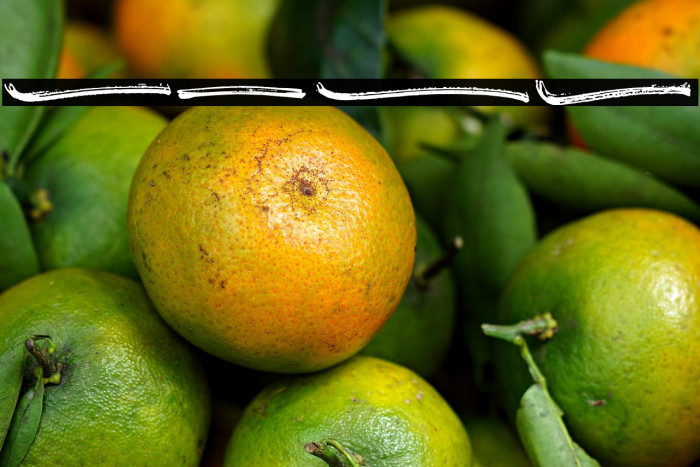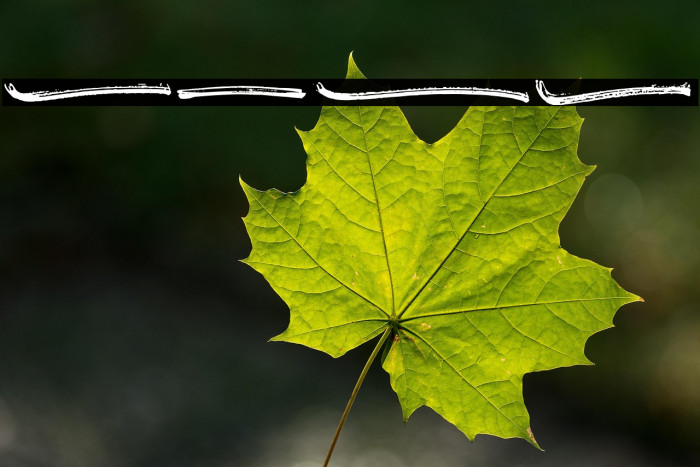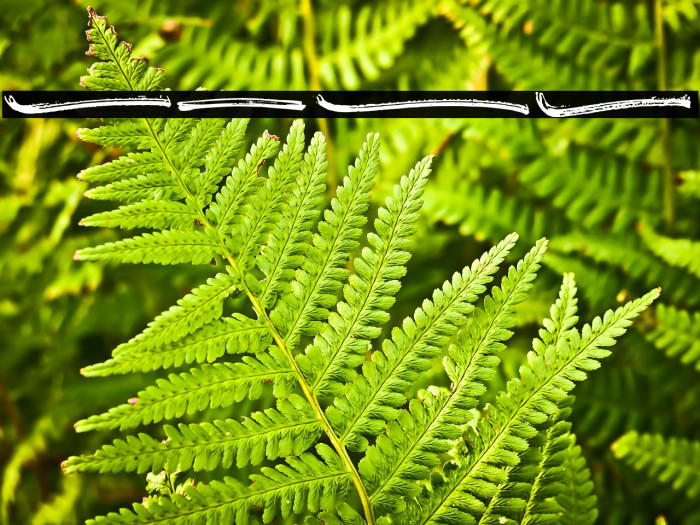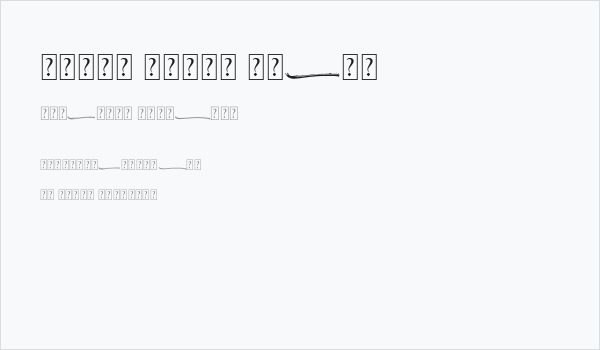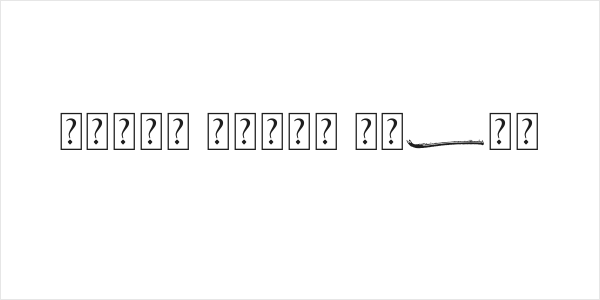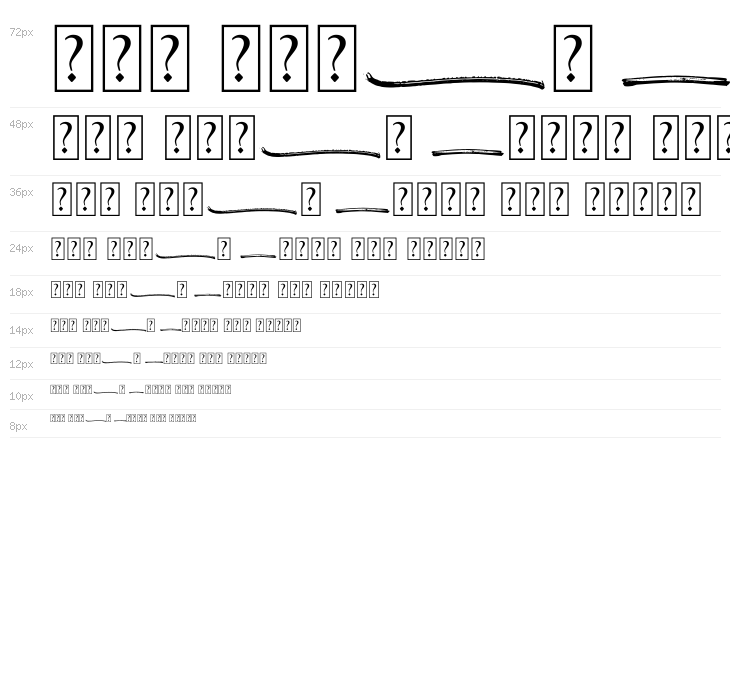
Hotte Brush Swash Font
Hotte Brush Swash Description
This font features a unique brush style with swashes that add a dynamic and artistic flair. The characters are designed with a hand-drawn appearance, giving them a personal and expressive touch. The strokes vary in thickness, creating a lively and textured look. This font is ideal for creative projects that require a bold and artistic statement. Its distinctive style makes it suitable for branding, packaging, and any design that aims to stand out with a handcrafted feel.
| Overall Style | Artistic, Handcrafted |
| Use Case | Logos, Headlines, Artistic Posters |
| Proposed Projects | Ideal for branding, packaging, artistic posters, and creative design projects. |